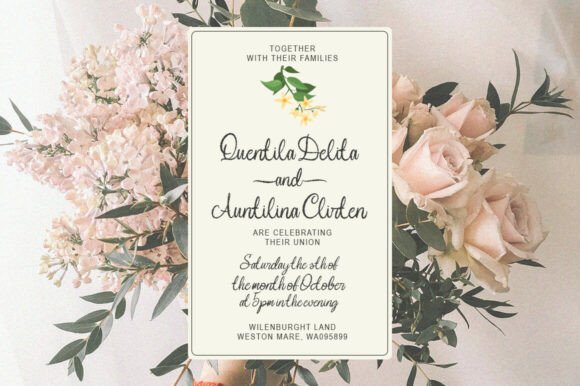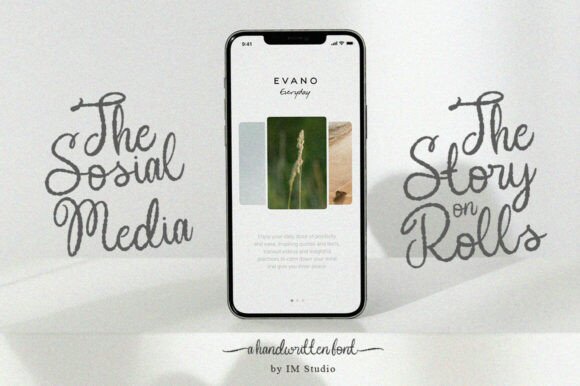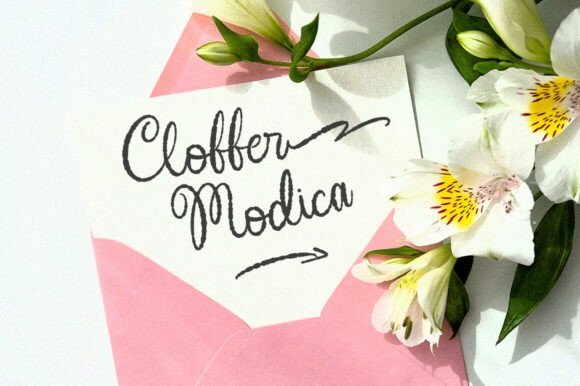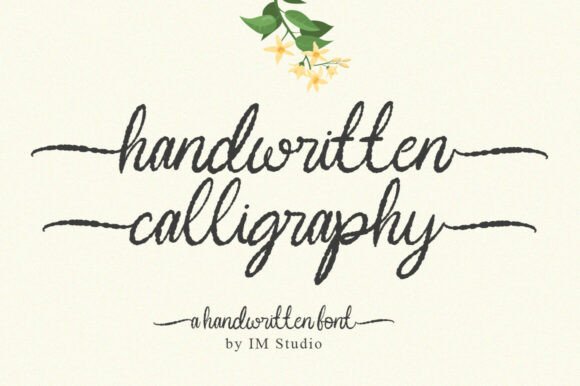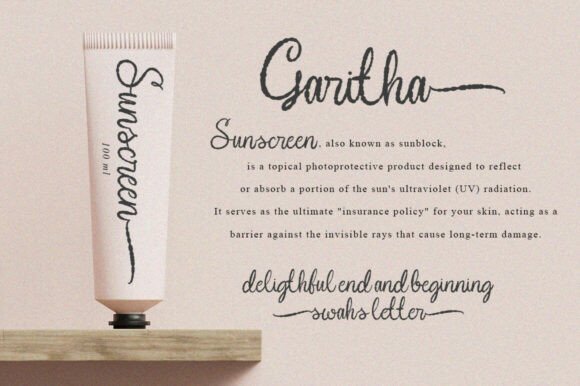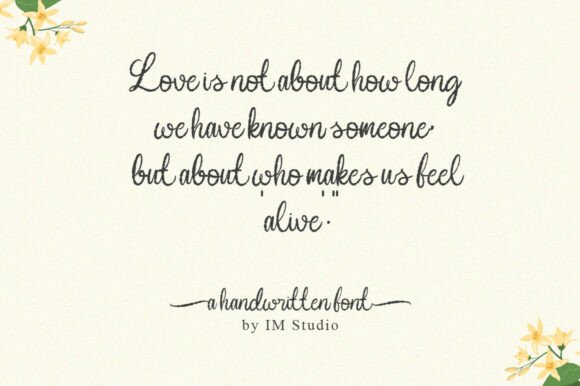
Introducing Garitha Complitten: The Ultimate Textured Script Typeface for Authentic Designs
In the world of typography, a font can make or break a design. If you’re looking for a typeface that exudes warmth, elegance, and a touch of rustic charm, look no further than Garitha Complitten. This beautifully crafted script font is designed to infuse your designs with an authentic, down-to-earth feel that’s perfect for a variety of creative projects.
The Unique Characteristics of Garitha Complitten
Garitha Complitten is a textured script typeface that boasts fluid, hand-drawn letterforms with a unique character that’s hard to find in digital fonts. One of its standout features is the rhythmic “ink-bleed” texture that gives it a delightfully organic feel. This texture, reminiscent of traditional handwriting and letterpress printing, adds a level of depth and tactility to your designs that’s sure to captivate your audience.
Another notable feature of Garitha Complitten is its elegant beginning and end swashes. These swashes not only add a touch of sophistication to your designs but also help to bridge the gap between personal correspondence and modern organic branding. Whether you’re creating wedding stationery, boutique logos, or social media headers, these swashes provide a beautiful finishing touch that elevates your designs to the next level.
The Perfect Font for Creative Projects
So, what makes Garitha Complitten the premier choice for designers and crafters? For starters, its warm personality and expressive flow make it perfect for projects that require a personal touch. Here are just a few examples of how you can use Garitha Complitten to create stunning designs:
- Independent Wedding Stationery Identities: Create beautiful, one-of-a-kind wedding stationery that reflects the couple’s unique style and personality.
- Boutique Apothecary Logos: Develop a distinctive brand identity for your boutique apothecary that stands out from the crowd and exudes a sense of natural elegance.
- Artisanal Food Packaging: Add a touch of rustic charm to your artisanal food packaging that highlights the care and craftsmanship that goes into each product.
- Social Media Headers: Create high-impact social media headers that showcase your brand’s personality and style, and help you connect with your audience on a more personal level.
Why Choose Garitha Complitten?
With so many fonts to choose from, why should you opt for Garitha Complitten? Here are just a few compelling reasons:
- Authentic Charm: Garitha Complitten captures the essence of a “rustic-and-relaxed” soul that’s perfect for designers and crafters looking to add a touch of authenticity to their work.
- Versatility: This font is incredibly versatile and can be used for a wide range of creative projects, from wedding stationery to social media headers.
- Elegance: With its fluid letterforms and elegant swashes, Garitha Complitten brings a level of sophistication and elegance to your designs that’s hard to match.
In conclusion, Garitha Complitten is a beautifully crafted textured script typeface that’s perfect for designers and crafters looking to infuse their designs with authentic charm. With its unique characteristics, warm personality, and expressive flow, this font is sure to become a staple in your design toolkit. Whether you’re creating wedding stationery, boutique logos, or social media headers, Garitha Complitten is the premier choice for anyone looking to add a touch of rustic elegance to their work.